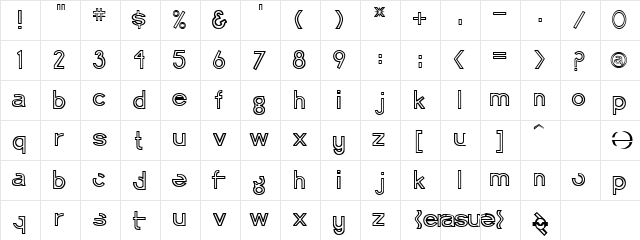
Inner Colour Regular
Design Context for Inner Colour Typeface
Inner Colour offers clean, dependable letterforms without strong stylistic allegiance, making it a practical choice for designers who need flexibility.